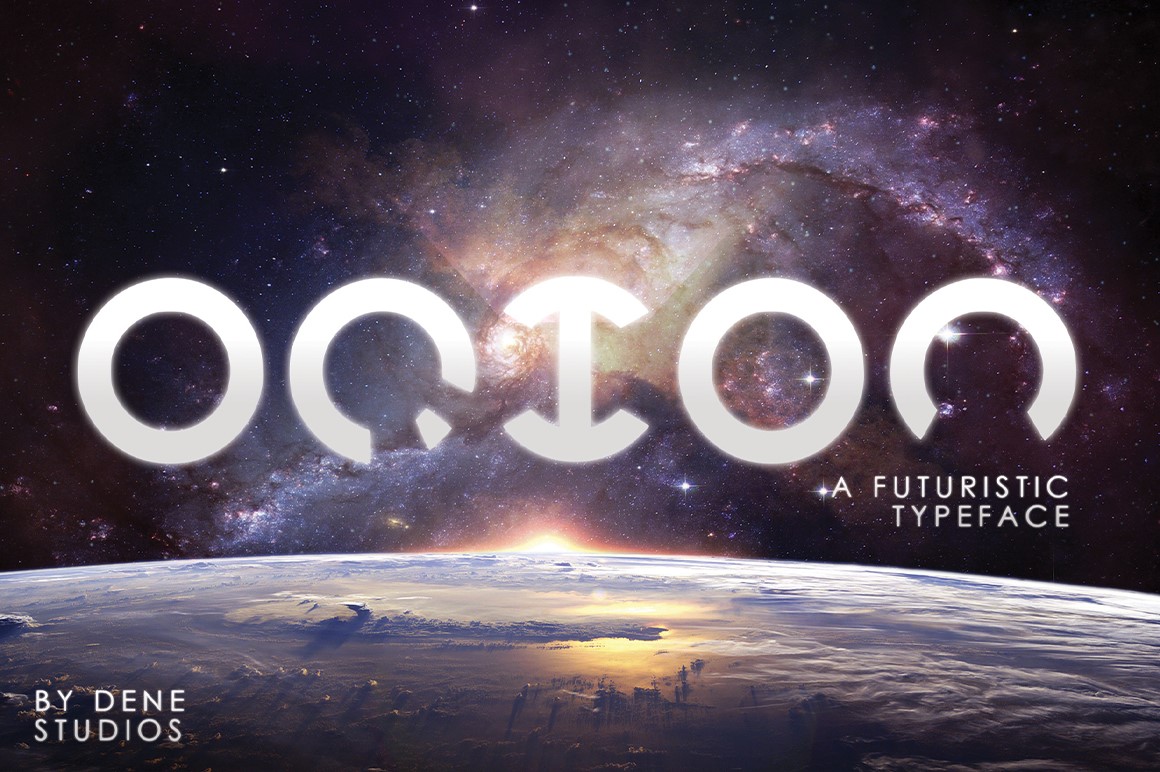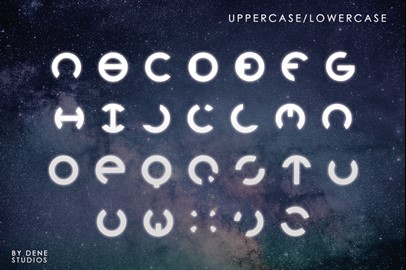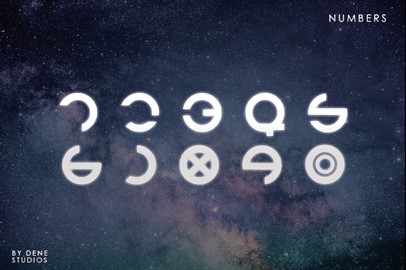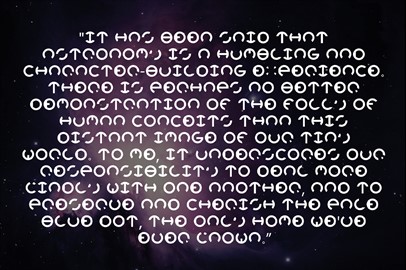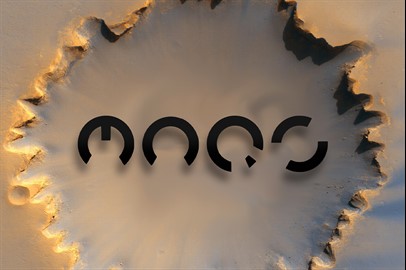
ORION - A Futuristic Typeface
ORION
is a unique and creative design that has been passionately handcrafted to give you a futuristic typeface. Contains uppercase letters as well as numbers.